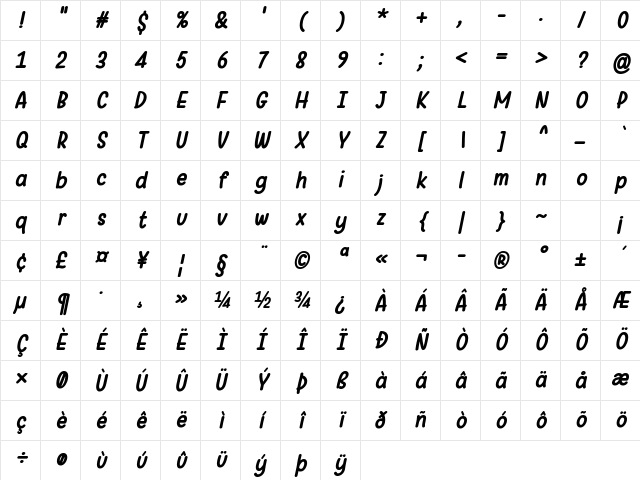
Warung Kopi Bold Italic
Foundry: 7NTypes
Designer: Situjuh Nazara
Complete Warung Kopi Bold Italic glyph index. Displaying only characters natively supported by Warung Kopi Bold Italic font.
Design Context for Warung Kopi
Warung Kopi is a composed and adaptable typeface that performs quietly and consistently across a wide range of design contexts. The slanted form adds forward momentum and visual energy. Its bold stroke weight gives it real presence on the page.
Pro Tip: Use Warung Kopi for emphasis, pull quotes, and subheadings where its slanted energy can add rhythm to the layout.